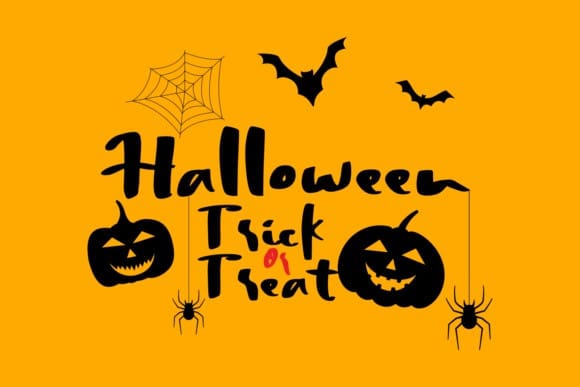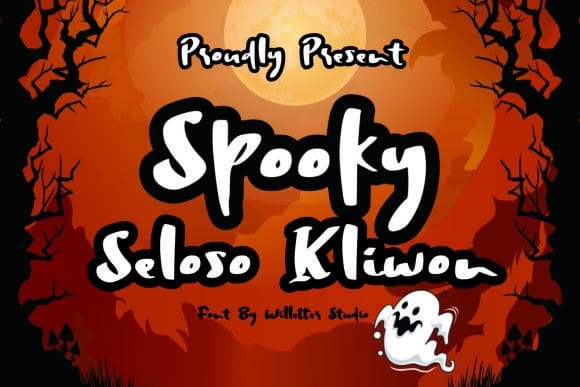
Spooky Seloso Kliwon Font
Spooky Seloso Kliwon Font is a cool, unique and fun display font. Whatever the topic, this font will be a wonderful asset to your font library, as it has the potential to enhance any creation.